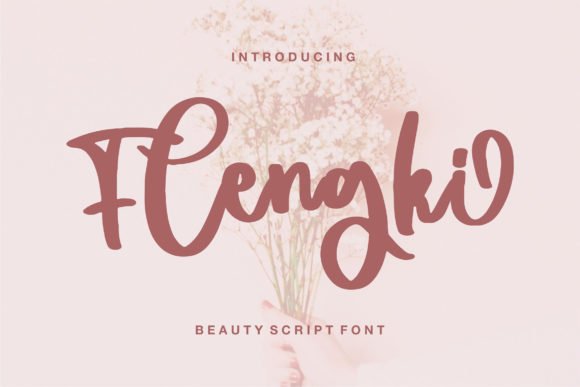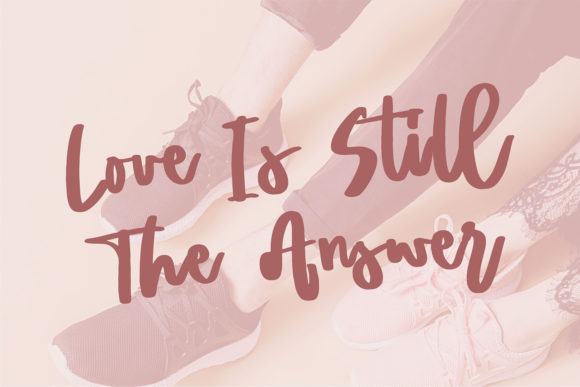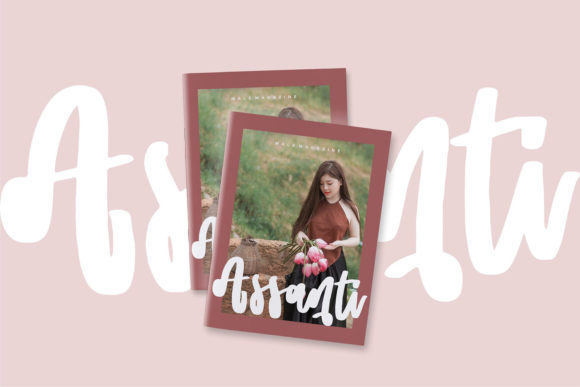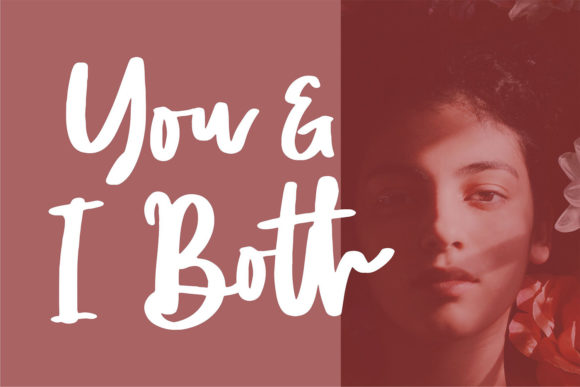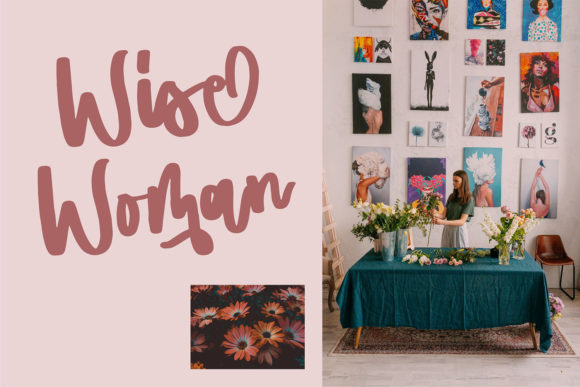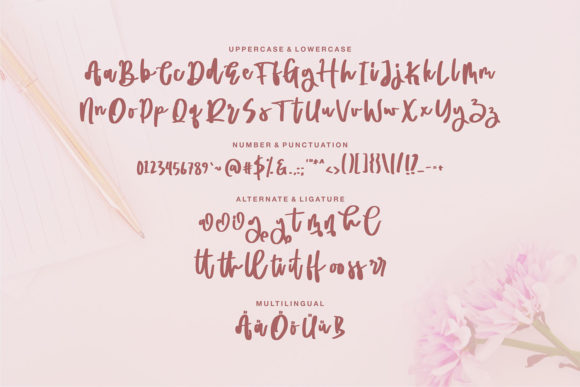
Get Ready to Fall in Love with the Perfect Brush Stroke
Have you ever been working on a design project and suddenly, that perfect brush stroke just eludes you? The one that makes your words feel like they’re jumping off the page? For designers, this moment is a familiar and frustrating phenomenon. But what if I told you there’s a solution that can bring your designs to life and make that perfect brush stroke a reality? Enter the Flengki Font, a modern, whimsical and thick lettered paint brushed script font that’s about to become your new best friend.
This authentic handwritten font is more than just a pretty face – it’s a game-changer for designers. With its incredibly versatile style, you can create spectacular designs that feel personal and realistic. Whether you’re a seasoned pro or just starting out, the Flengki Font is an invaluable addition to your design toolkit.
Flengki Font Key Features
- Character Set: The font includes a comprehensive character set, including Latin, Cyrillic, and Greek alphabets, as well as a range of punctuation marks and symbols.
- Unique Characteristics: The font features a unique blend of modern and traditional design elements, with distinctive curves and lines that give it a distinctive look and feel.
- Font Style Variations: The font includes multiple style variations, including Regular, Italic, Bold, and Bold Italic, allowing for a high degree of flexibility and customization.
Flengki Font Review
Overall, I was intrigued by the unique design of Flengki Font. Here are some things that work well:
- ✨ The font’s quirky and playful feel makes it perfect for projects that require a lighthearted tone.
- ✨ The font’s openness and legibility make it easy to read, even at smaller font sizes.
- ✨ The font’s range of weights and styles provides plenty of options for designers to choose from.
- ⚠️ The font’s irregular shape and unpredictable spacing can make it difficult to use in situations where precise alignment is required.
- ⚠️ The font’s overall aesthetic may not be suitable for formal or professional projects, as it can come across as too casual.
- ⚠️ The font’s limited language support may be a concern for designers working on international projects.
Overall, I think Flengki Font is a great choice for projects that require a playful and whimsical feel. While it may not be suitable for all projects, it’s definitely worth considering for those that fit its aesthetic. With a little caution and careful planning, designers can make the most of this unique and interesting font.
Getting the Most Out of Flengki Font
To get the most out of Flengki Font, try the following tips:
- Use Flengki Font for headings and titles to add a touch of elegance to your design.
- Combine Flengki Font with other fonts to create a unique and eye-catching typography.
Flengki Font is perfect for:
- Branding and
Great Vibes Font is a beautiful and elegant script font. It is best used for invitations, wedding stationery, and other applications where you want to add a touch of sophistication and romance. Great Vibes Font has a more refined and luxurious feel compared to Flengki Font, making it suitable for high-end branding and design projects.
Are there any technical requirements for using the Flengki Font?
The Flengki Font supports Unicode characters up to U+10FFFF and requires a minimum of 512×512 pixels for optimal display. It also supports various font features, including ligatures, stylistic sets, and opentype alternates. Please refer to the font’s documentation for more information on technical specifications and usage guidelines.